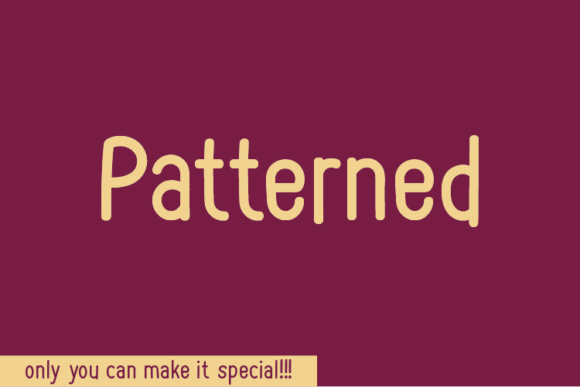
Prepare to be mesmerized by Patterned Font, a captivating new script font family that exudes a sense of playfulness and authenticity. This remarkable creation by Hanna Bie stands out from the crowd with its unwavering commitment to preserving the natural flow of handwriting, ensuring that each character retains its unique quirks and charm.
With Patterned Font, imperfections are embraced as beacons of individuality, adding a touch of whimsy and personality to your digital creations. Say goodbye to the mundane and hello to a font that speaks to your creative spirit.
Dive into a world where letters dance and intertwine, creating a visual symphony that elevates your designs to new heights. Patterned Font is not just a collection of ordinary glyphs; it's an artistic expression that captures the essence of handwritten communication.
Let your imagination run wild as you explore the endless possibilities that Patterned Font presents. From heartfelt quotes and personal notes to eye-catching t-shirt designs and captivating product packaging, this font is your perfect companion. Its versatility knows no bounds, adapting seamlessly to a myriad of projects and styles.
With Patterned Font, you'll discover a new level of creative freedom. Its organic flow and innate charm add a personal touch to any project, making it stand out from the sea of uniformity. Embrace the beauty of imperfections and let your creativity flourish.
So, whether you're a seasoned designer seeking to add a touch of magic to your work or an aspiring artist exploring the realm of digital creativity, Patterned Font is your key to unlocking a world of endless possibilities. Embrace the uniqueness of handwritten expression and let your designs shine with a captivating allure.